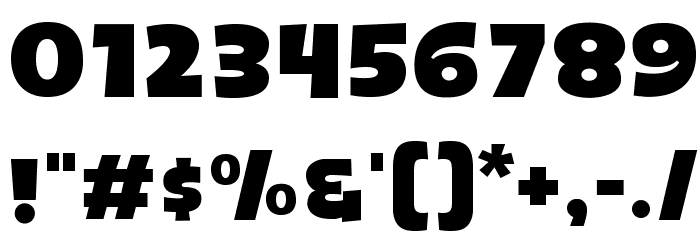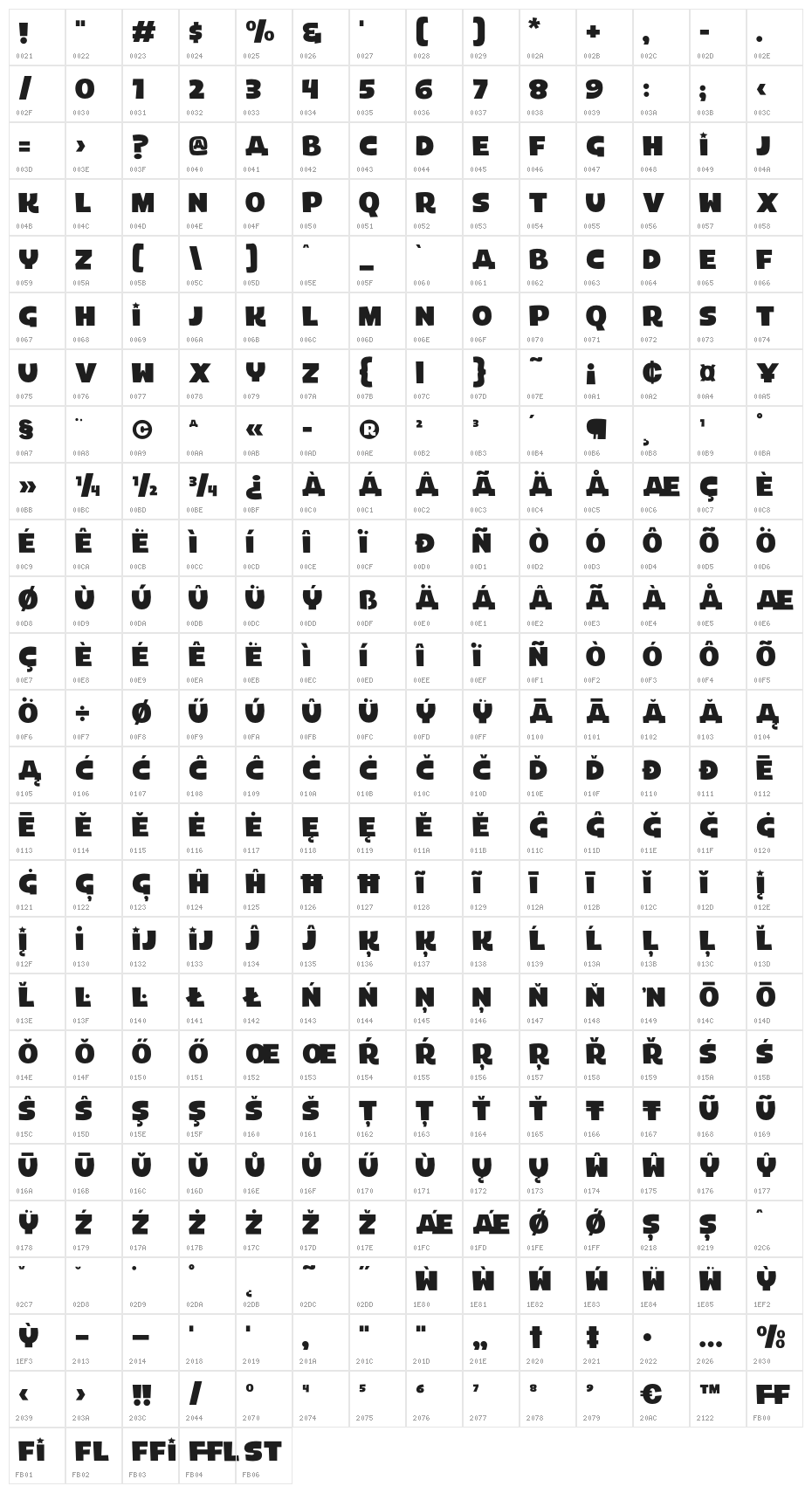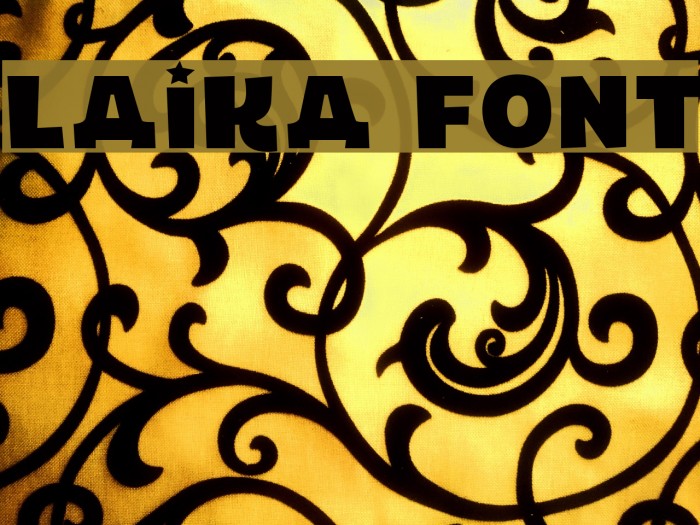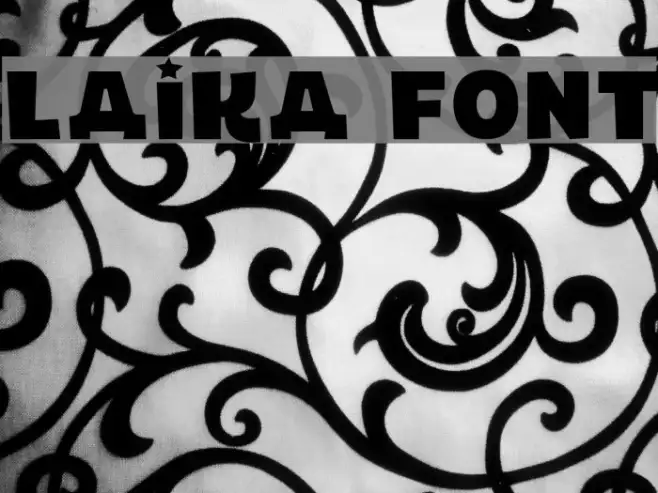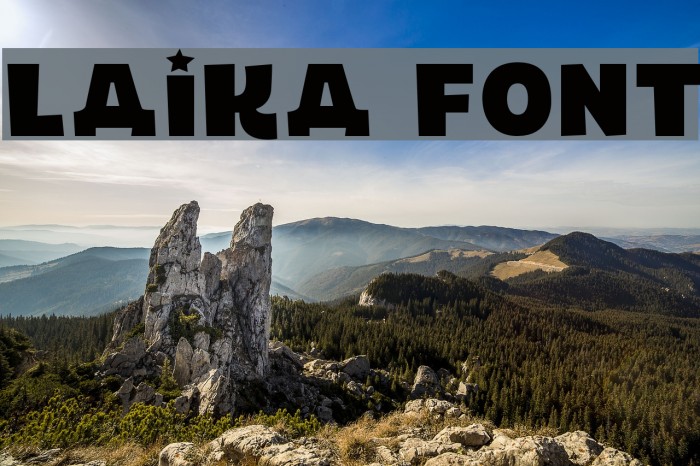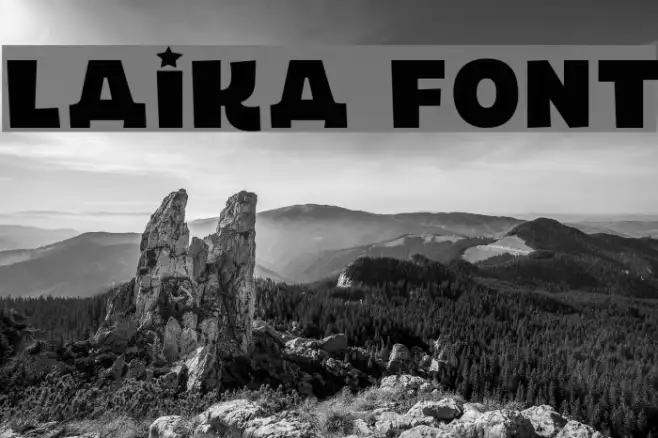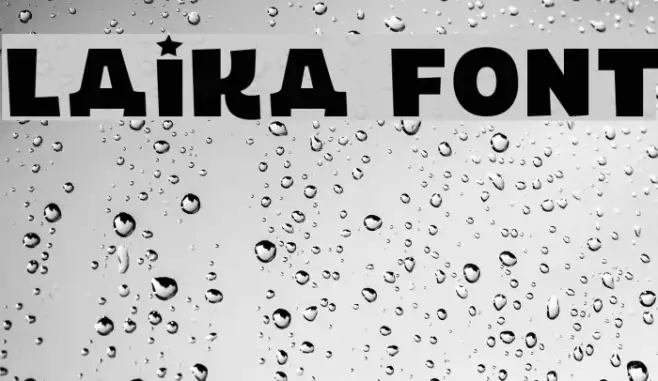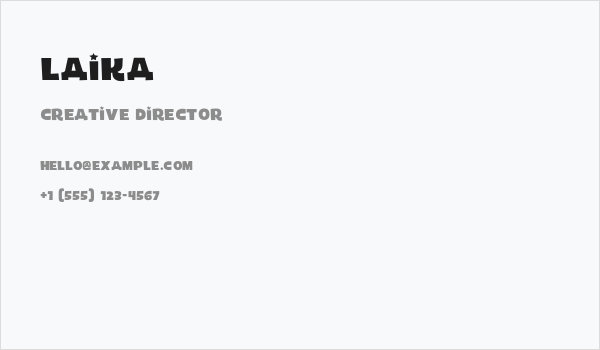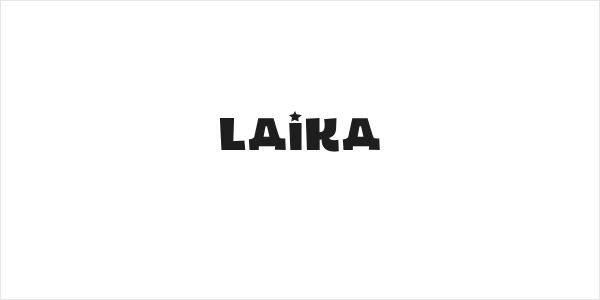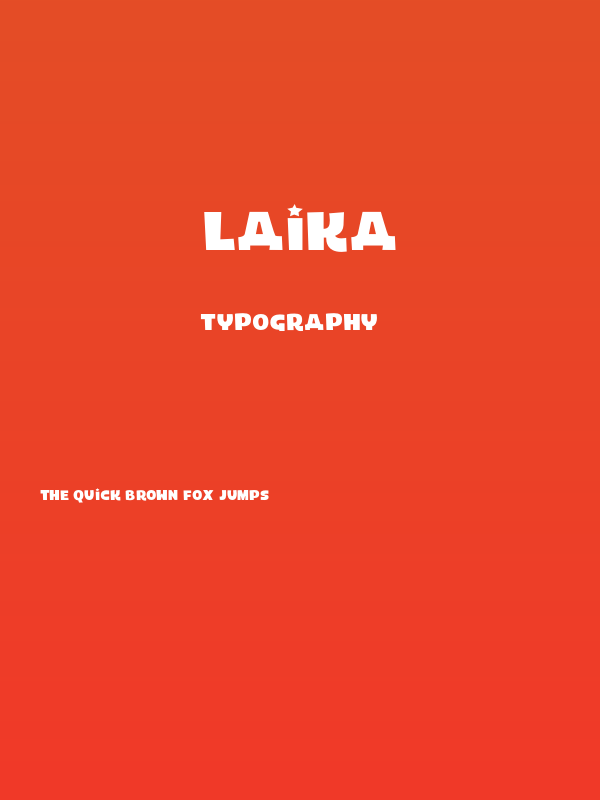
LAIKA Font
LAIKA Description
This bold and playful font features a unique, chunky design with a star accent on the letter 'I'. The characters are heavily weighted, creating a strong visual impact. The rounded edges and thick strokes give it a friendly and approachable feel, while the consistent thickness across all characters maintains a cohesive look. The font includes both uppercase and lowercase letters, numbers, and a variety of special characters, making it versatile for different uses. Its distinct style is perfect for capturing attention and conveying a sense of fun and creativity.
| Overall Style | Playful, Creative |
| Proposed Projects | Ideal for children's book covers, playful branding, posters, and creative advertising campaigns. |